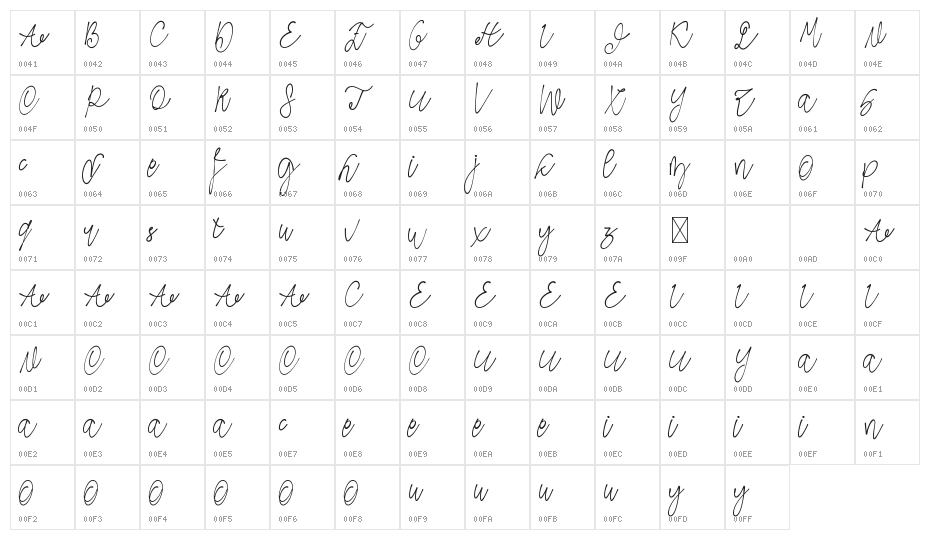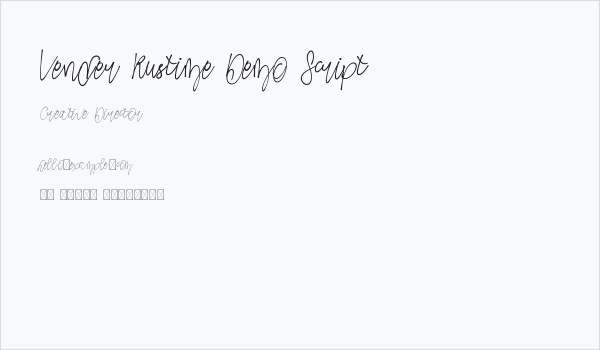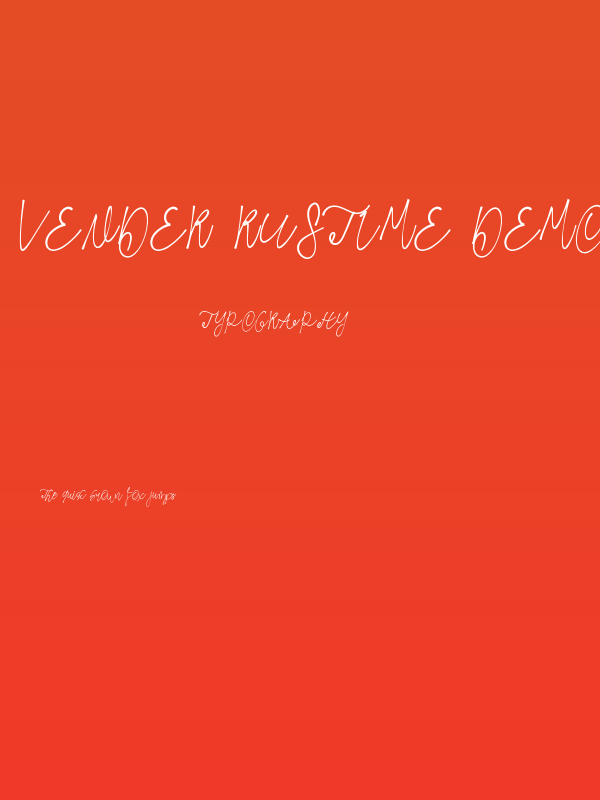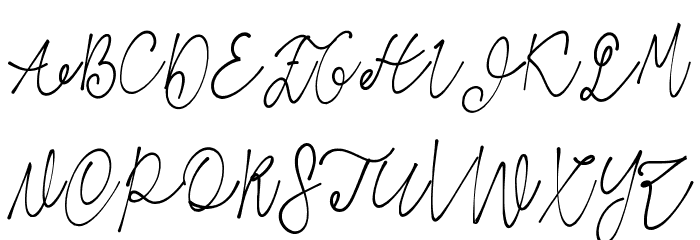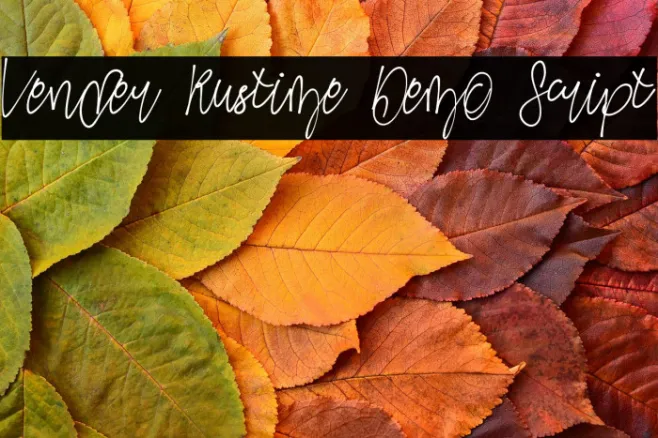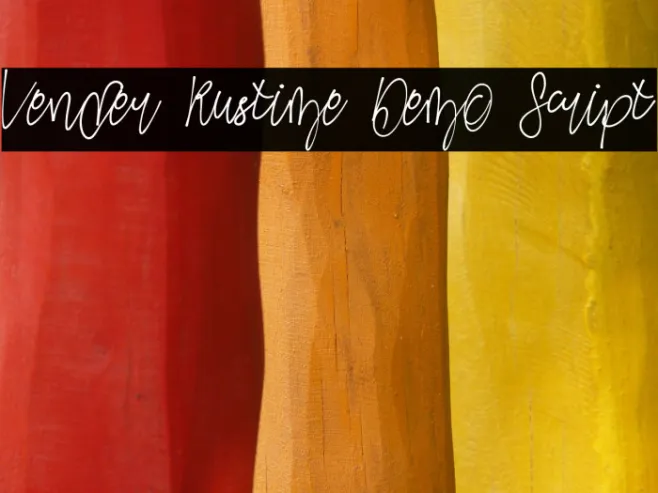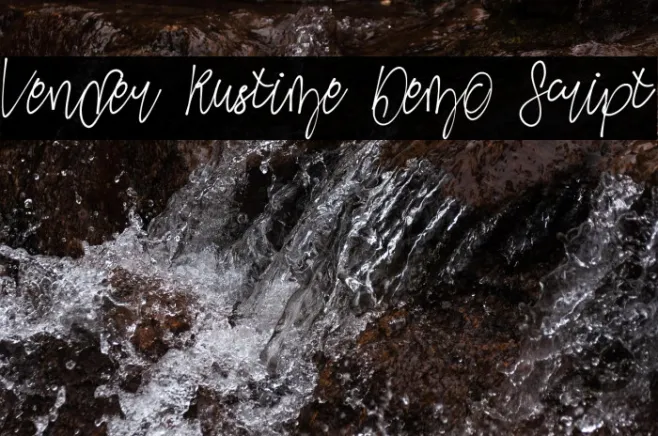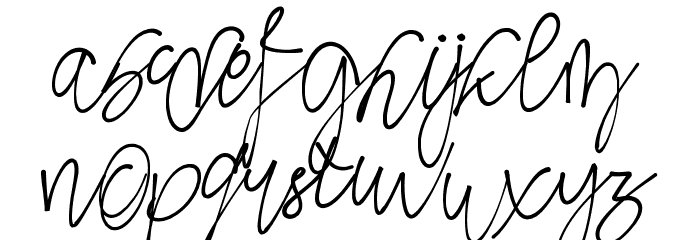
Vender Rustime Demo Script Font
Vender Rustime Demo Script Description
This script font exudes a sense of elegance and fluidity, characterized by its flowing, cursive style. The letters are interconnected, creating a seamless and continuous look that mimics natural handwriting. The strokes are smooth and slightly varied in thickness, adding a touch of dynamism and personality. The uppercase letters are distinct and stylish, while the lowercase letters maintain a consistent rhythm and flow. This font is perfect for projects that require a personal touch, such as invitations, greeting cards, or branding materials. Its artistic flair makes it suitable for creative and expressive designs.
| Proposed Projects | Ideal for invitations, greeting cards, branding, and creative designs. |